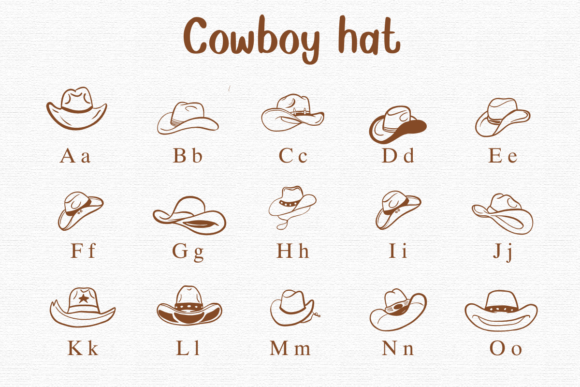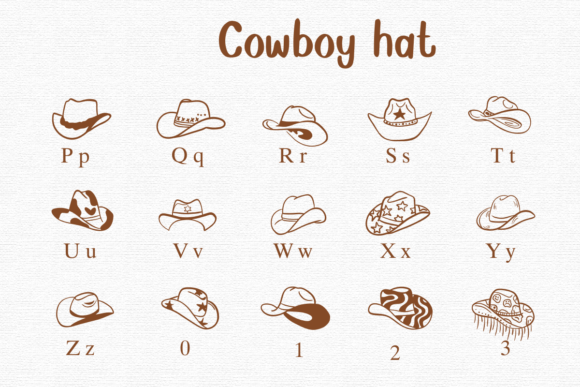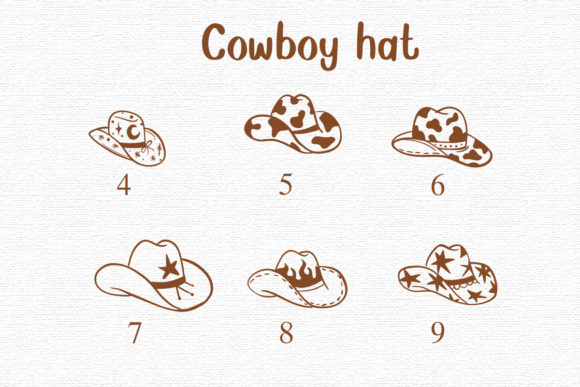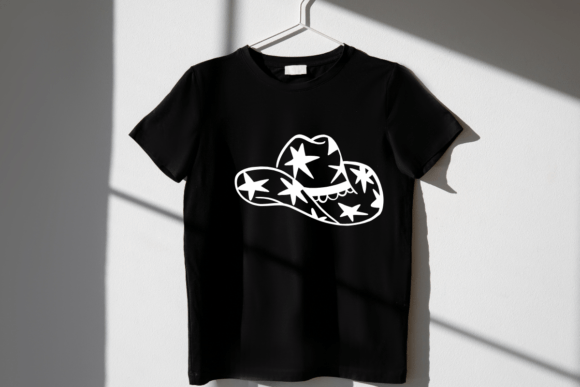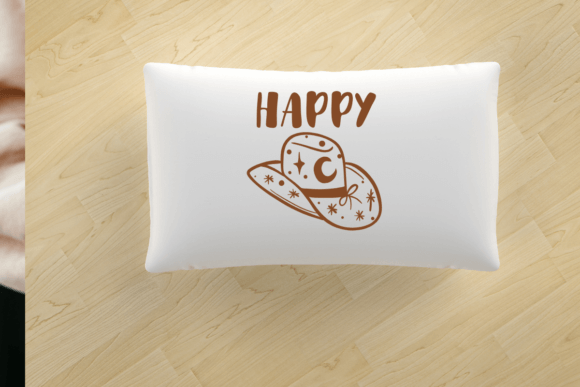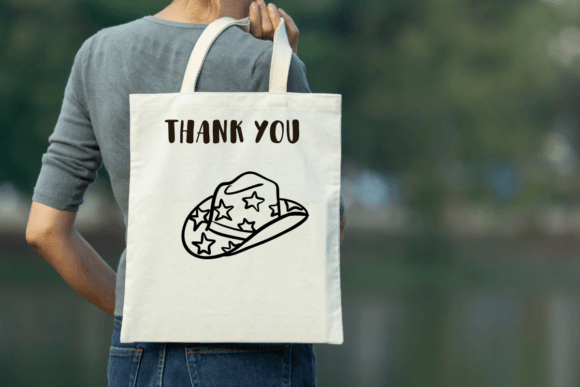
Cowboy Hat Font: Add a Touch of Western Flair to Your Designs
Are you looking for a unique and fun way to add a Western twist to your designs? Look no further than the Cowboy Hat Font, a dingbat font that features a variety of cowboy hat symbols. This playful font is perfect for designers, crafters, and anyone who wants to add a rustic touch to their projects.
What is Cowboy Hat Font?
Cowboy Hat Font is a dingbat font that consists of a collection of cowboy hat symbols, each representing a different style. Unlike traditional fonts, which feature letters and numbers, dingbat fonts feature graphic symbols and icons. In this case, the Cowboy Hat Font features a range of cowboy hats, from classic and simple to elaborate and ornate.
Perfect for Western-Inspired Designs
The Cowboy Hat Font is perfect for designers who want to add a touch of the Wild West to their projects. Whether you’re creating a logo, a poster, or a craft project, this font is sure to add a playful and rustic touch. The cowboy hat symbols can be used to represent a range of themes, from country and western to outdoors and adventure.
Key Features of Cowboy Hat Font
• Variety of cowboy hat symbols: Each character in the font represents a different style of cowboy hat, giving you a range of options to choose from.
• Playful and rustic: The Cowboy Hat Font adds a fun and rustic touch to your designs, perfect for Western-inspired projects.
• Scalable: The Cowboy Hat Font is scalable, meaning you can use it for a range of projects, from small crafts to large posters.
How to Use Cowboy Hat Font
Using the Cowboy Hat Font is easy. Once you’ve downloaded and installed the font on your computer, you can use it in your favorite design software. Here are a few ideas for using the Cowboy Hat Font:
• Create a Western-inspired logo: Use the cowboy hat symbols to create a logo for a country-themed business or event.
• Make a rustic poster: Add a touch of the Wild West to your posters with the Cowboy Hat Font.
• Design a craft project: Use the cowboy hat symbols to create a fun and playful craft project, such as a card or a scrapbook page.
Tips and Variations
Here are a few tips and variations for using the Cowboy Hat Font:
• Experiment with different sizes and colors: Try using the cowboy hat symbols in different sizes and colors to add visual interest to your designs.
• Combine with other fonts: Combine the Cowboy Hat Font with other fonts to create a unique and eye-catching design.
• Use for themed events: Use the Cowboy Hat Font to create invitations, posters, and other materials for Western-themed events, such as cowboy birthday parties or rodeos.
The Cowboy Hat Font is a fun and playful dingbat font that adds a touch of Western flair to any design. With its variety of cowboy hat symbols, easy-to-use design, and scalable size, this font is perfect for designers, crafters, and anyone who wants to add a rustic touch to their projects. So why not give it a try and see how you can use the Cowboy Hat Font to add a little bit of the Wild West to your designs?